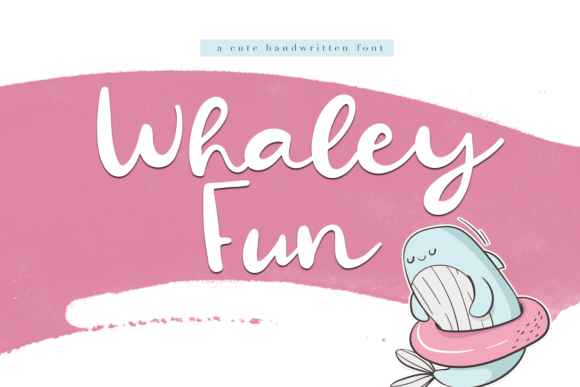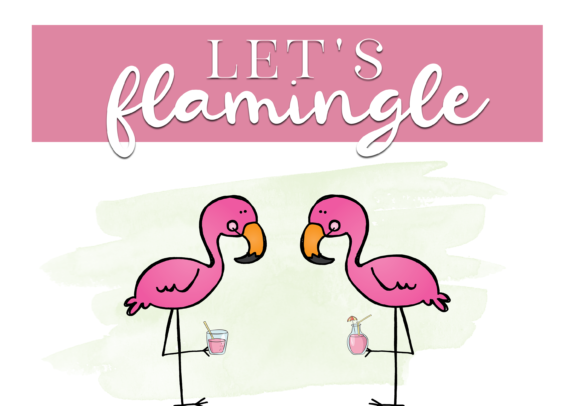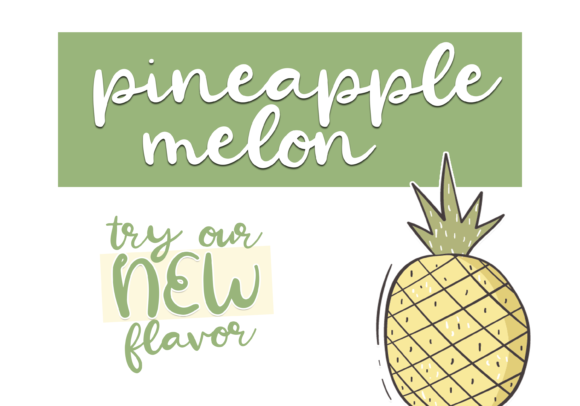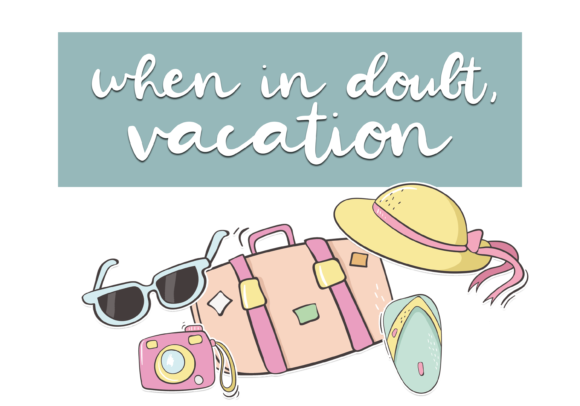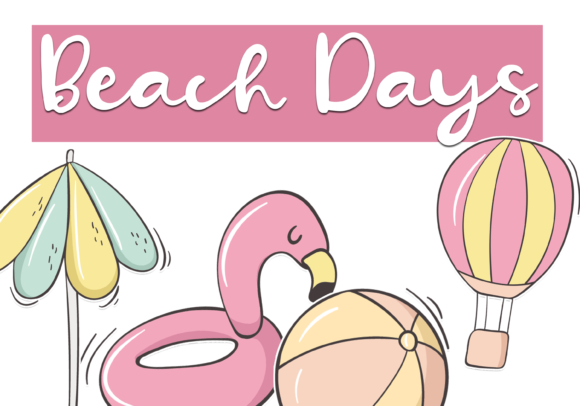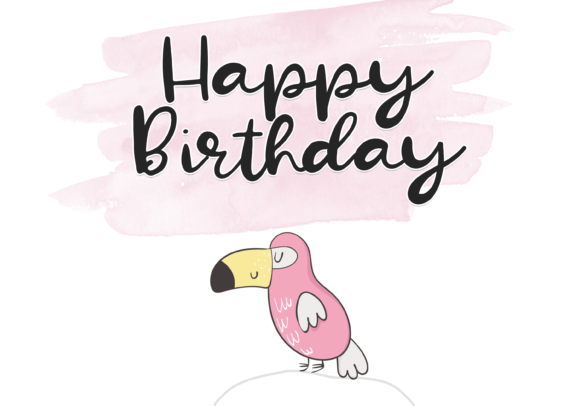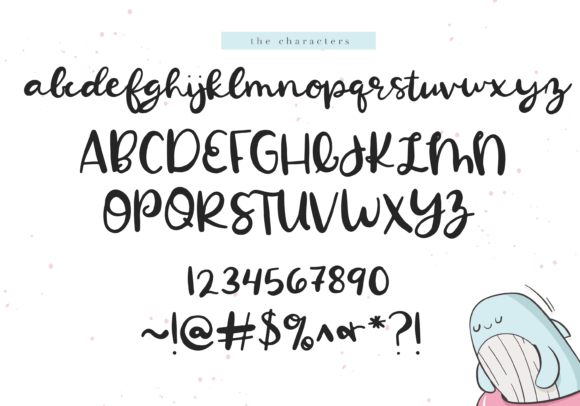
Whaley Fun Font
About Whaley Fun Font
Whaley Fun is an undeniably cute and whimsical handwritten font that will put an adorable spark on any design idea. Fall in love with its playful charm.